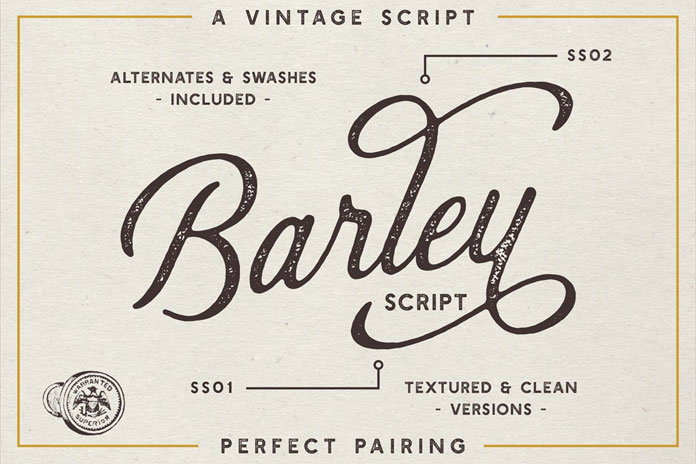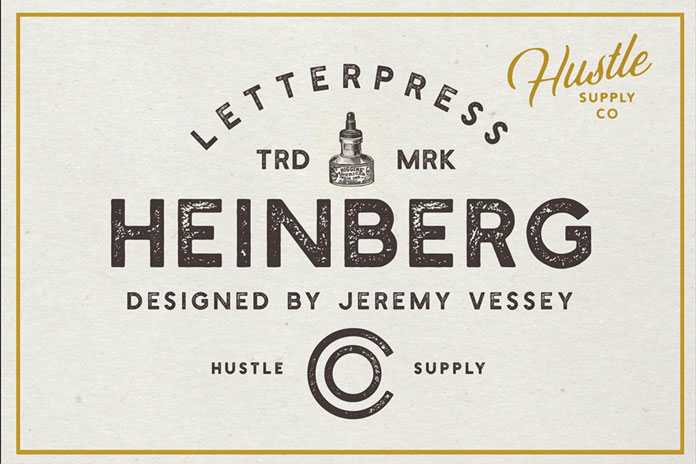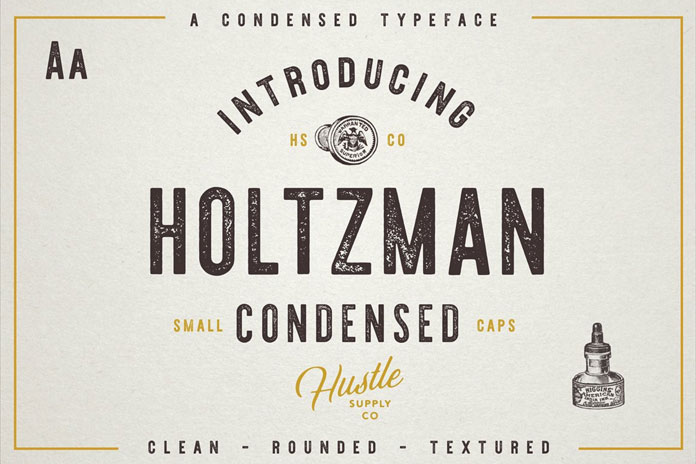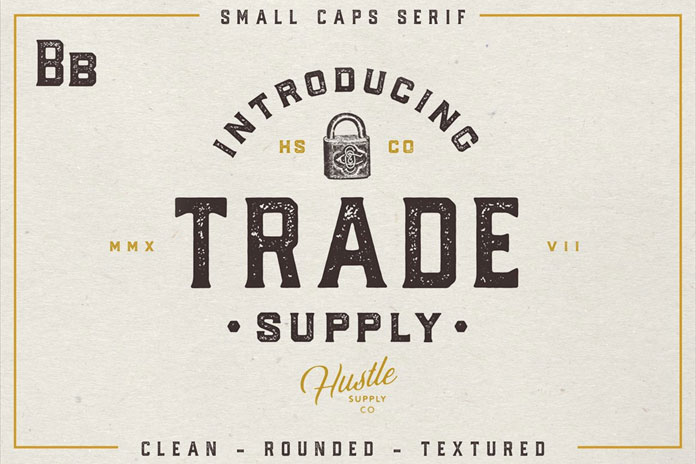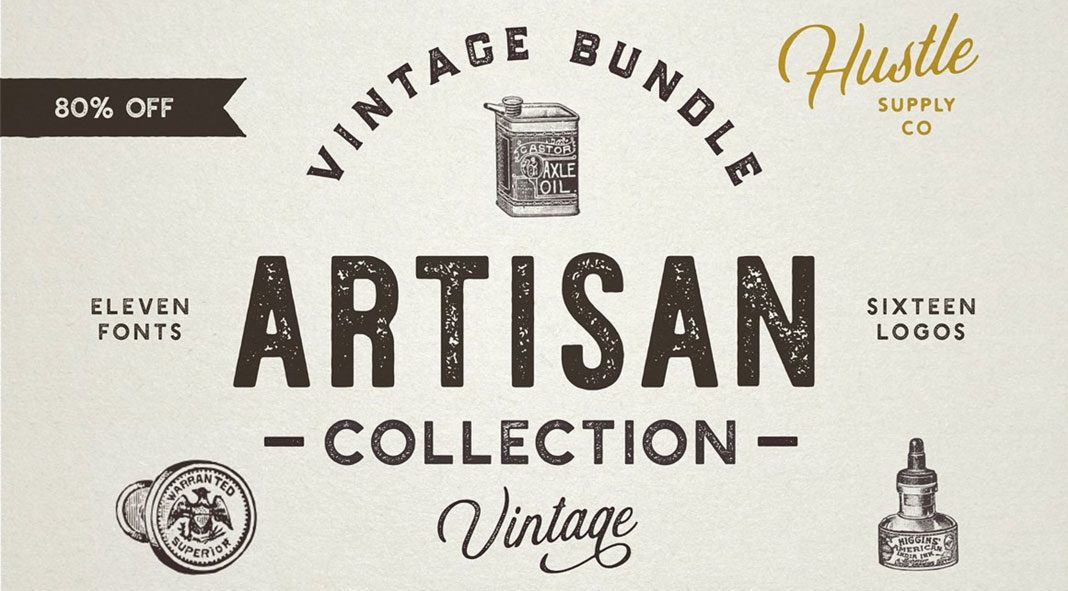
The Artisan collection – retro fonts and vintage logo templates from Hustle Supply Co.
Jeremy Vessey of studio Hustle Supply Co. has packed together this amazing bundle consisting of 6 brand new products including 11 unique fonts, 16 premium logo templates, and 20 authentic vintage shapes. With attention to usability and versatility, Jeremy Vessey has created different typefaces, which can be combined in multiple designs seamlessly. Please read more below or click on the following link to get this amazing bundle.
What’s included?
As already mentioned, the Artisan collection includes different vintage-inspired fonts. Barley Script is a script typeface with lots of alternate characters. It is included as a clean and textured version. The Holtzman typeface is a condensed font that comes as a clean, rounded, and textured version. Heinberg is a sturdy sans serif typeface including a clean, rounded, and textured style. Last but not least, Trade Supply is a serif typeface with condensed capital letters available as a clean, rounded, and textured version.